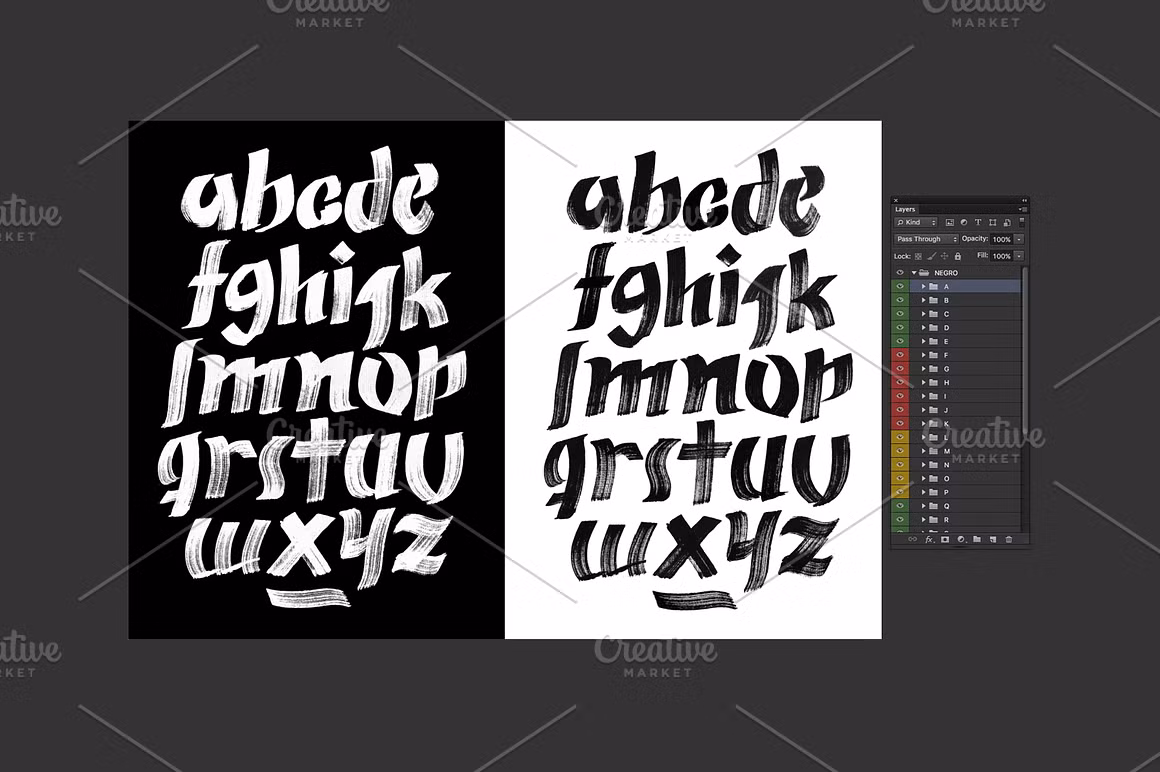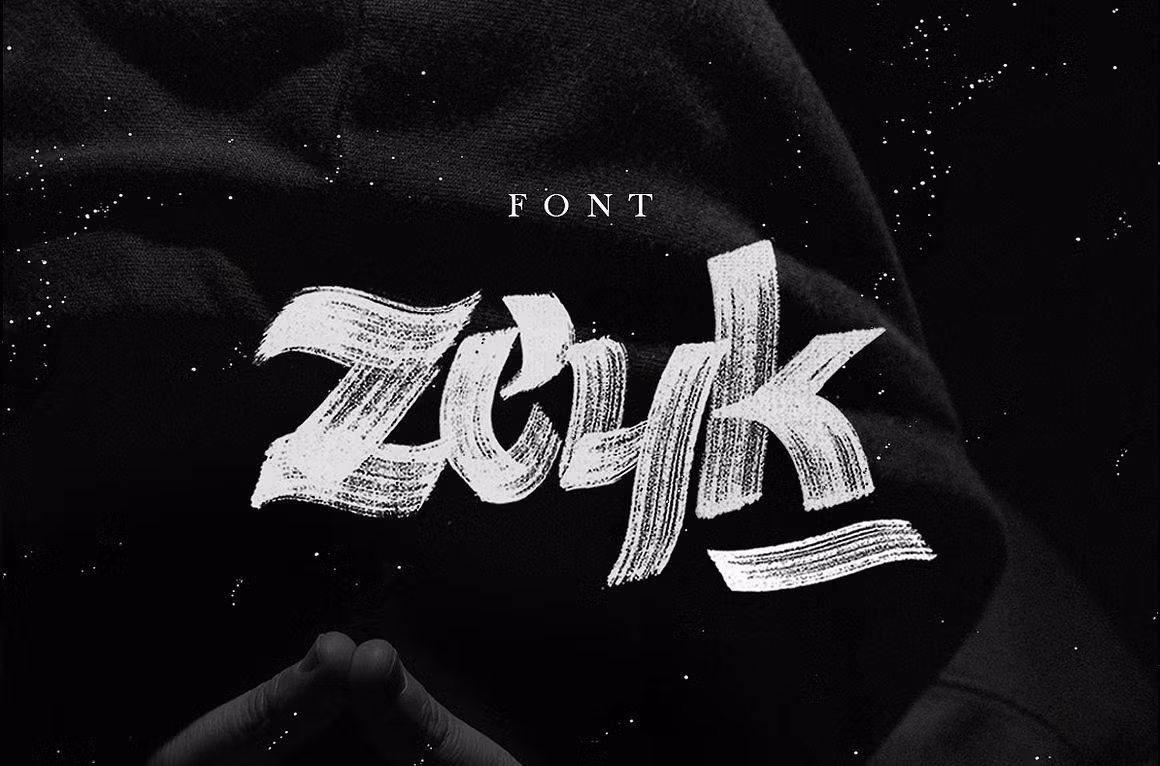
Zeyk Font
Zeyk Brush font is again here with the amazingly gorgeous and hand-lettered brush font that will breathe new life into your typography. Tabloid Zeyk has an unconventional and daring font that is supposed to immediately catch oneโ€™s attention, so it is best to implement it into several designs.
Zeyk Brush Font